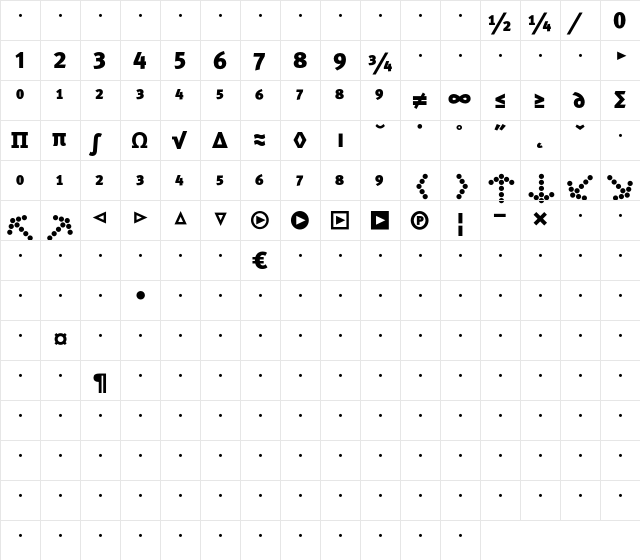
MetaBlackCyr-CapsExpert Regular
Design Context for MetaBlackCyr-CapsExpert Typeface
MetaBlackCyr-CapsExpert is a composed and adaptable typeface that performs quietly and consistently across a wide range of design contexts.